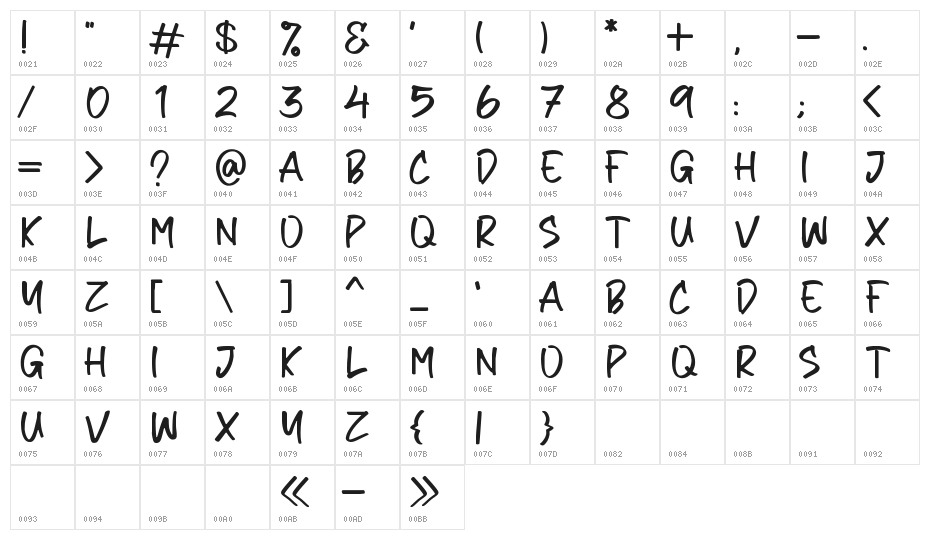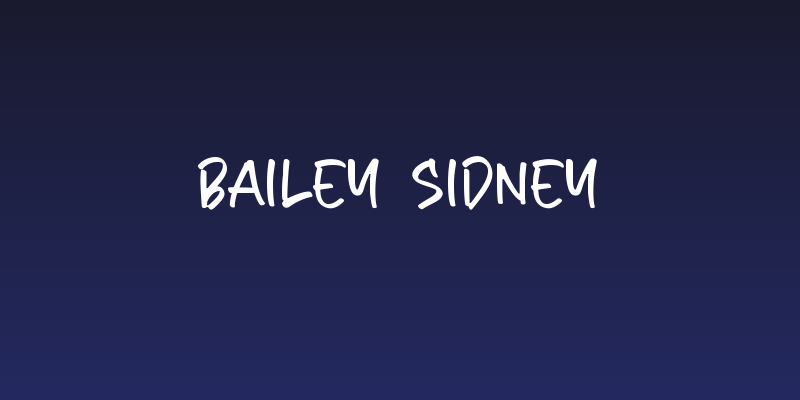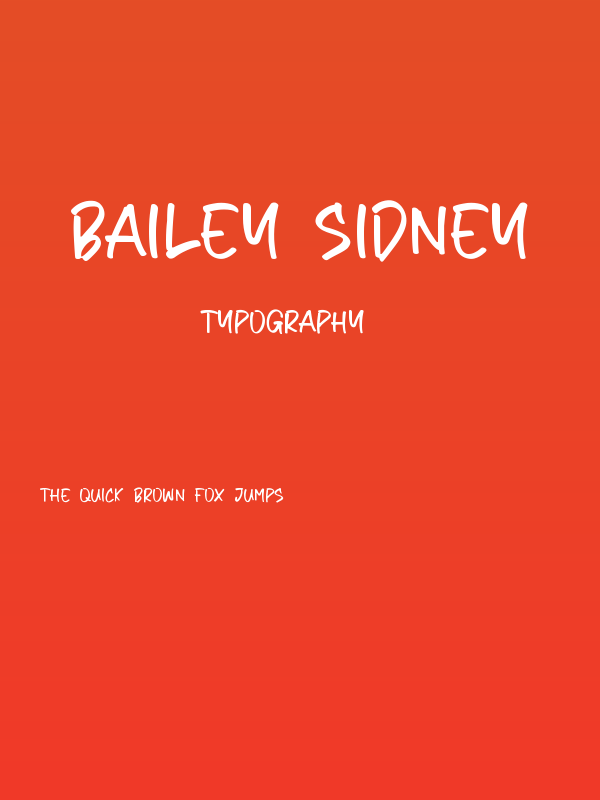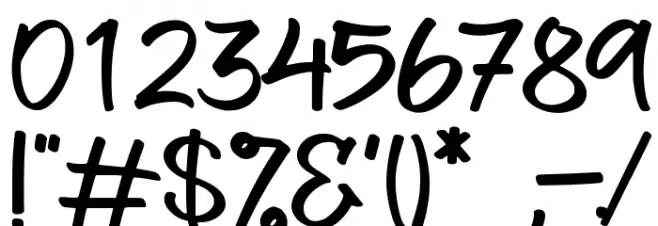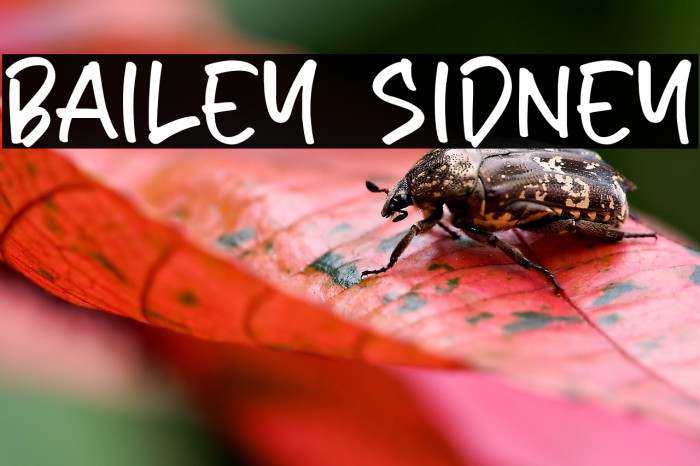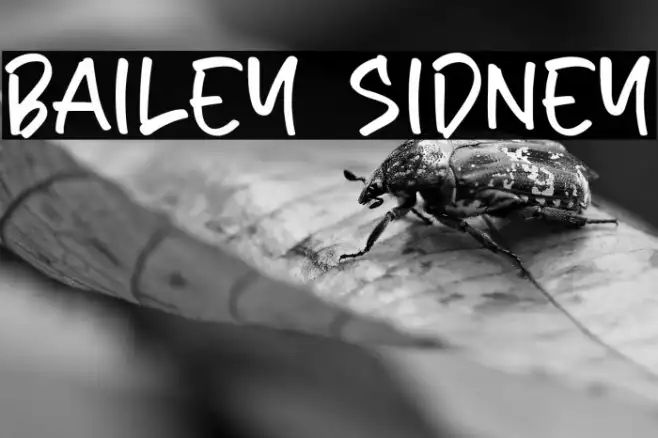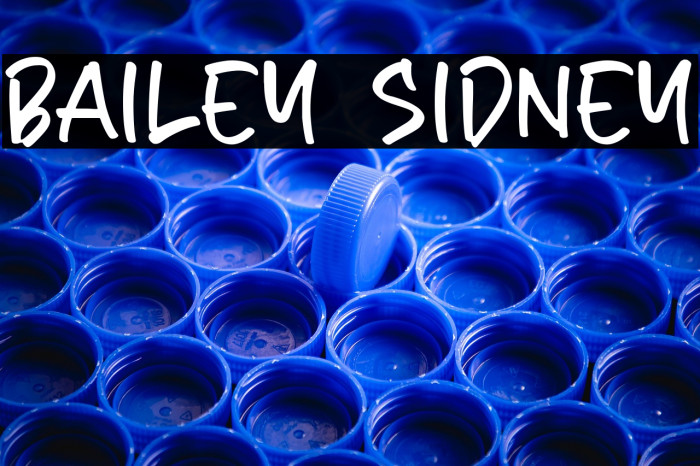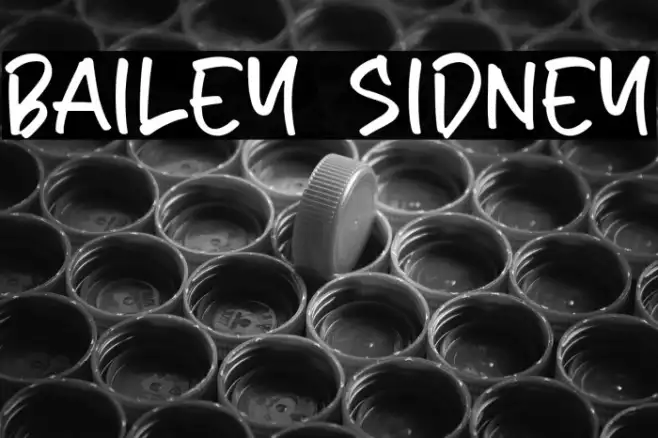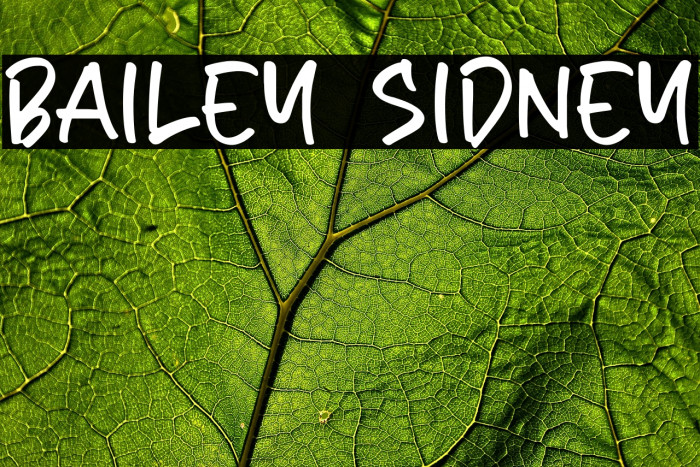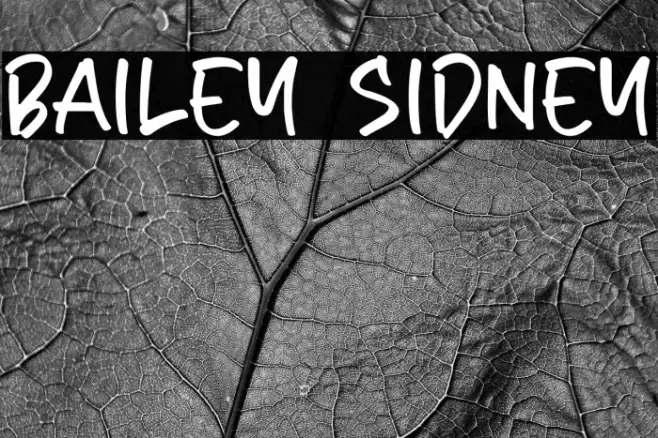
Bailey Sidney Font
Bailey Sidney Description
This font features a playful and energetic handwritten style, characterized by its bold and slightly irregular strokes. The letters are crafted with a casual flair, giving an impression of spontaneity and creativity. The uppercase and lowercase letters maintain a consistent flow, while the numbers and special characters complement the overall aesthetic with their dynamic forms. The font's informal nature makes it suitable for projects that require a personal touch or a sense of fun.
| Overall Style | Playful, Casual |
| Use Case | Logos, Posters, Greeting Cards |
| Proposed Projects | Ideal for greeting cards, playful branding, children's books, and creative posters. |